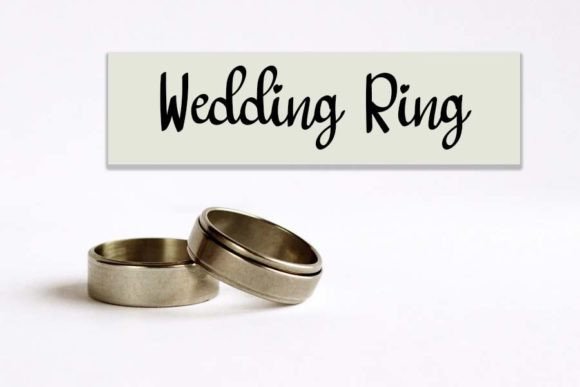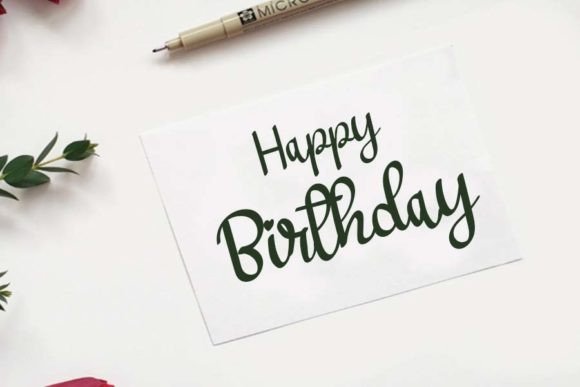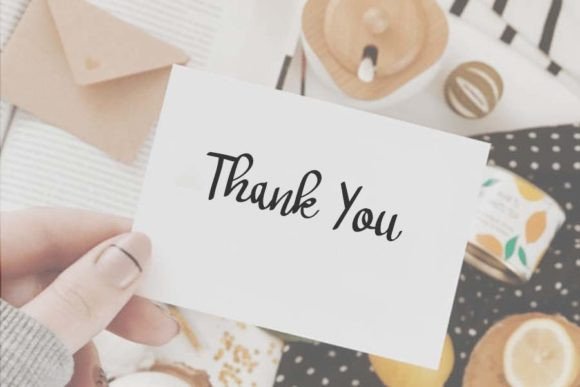
The Flamingo Font: A Cute Handwritten Delight for Designers and Creatives
I’ll never forget the time I was working on a project for a client who wanted a custom wedding invitation. I had spent hours brainstorming ideas, but something was missing – the perfect font. That’s when I stumbled upon the Flamingo Font, a cute handwritten font that instantly caught my attention. Its cursive and stylish sets allowed me to create beautifully handcrafted typography that exceeded my client’s expectations. In this article, I’ll share my experience with the Flamingo Font, its features, and how to make the most of it in various design platforms.
An Honest Review of Flamingo Font
- ✨ Cute and Playful: The Flamingo Font is perfect for designers and creatives who want to add a touch of whimsy to their projects.
- ✅ Highly Versatile: Whether you’re working on a wedding invitation, a craft project, or a social media graphic, this font adapts seamlessly.
- 💫 Beautiful Handcrafted Feel: The font’s handwritten style gives it a unique, personal touch that’s hard to achieve with standard fonts.
While the Flamingo Font is amazing, there are a few things to keep in mind:
- 🤔 Legibility at Small Sizes: Like many script fonts, Flamingo can be tricky to read at very small sizes. It’s best used at larger sizes or for headlines.
- ⚠️ Pairing with Other Fonts: To avoid visual clutter, pair Flamingo with simple, sans-serif fonts to create contrast.
The Story Behind Flamingo Font
The Flamingo Font was inspired by the beautiful, flowing scripts found in vintage travel posters. Its creator, a passionate typographer, aimed to capture the essence of handwritten elegance with a modern twist. The result is a font that’s both stylish and approachable, perfect for a wide range of creative projects.
Q: Is Flamingo Font suitable for body text?
A: While Flamingo is stunning for headlines and titles, it’s not ideal for long body text due to its script nature and potential legibility issues at smaller sizes.
Q: Does Flamingo Font support OpenType features?
A: Yes, Flamingo Font supports OpenType features, including stylistic alternates and glyphs, which can be accessed in compatible design software.